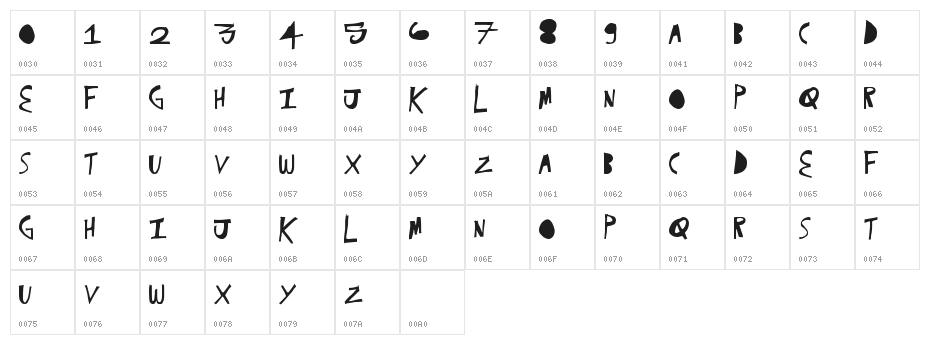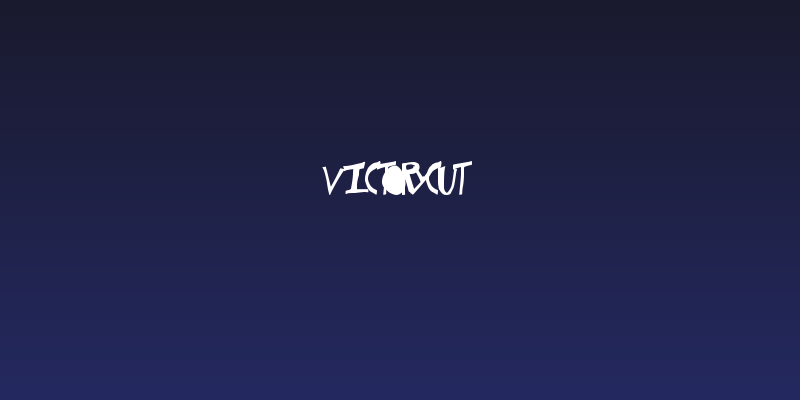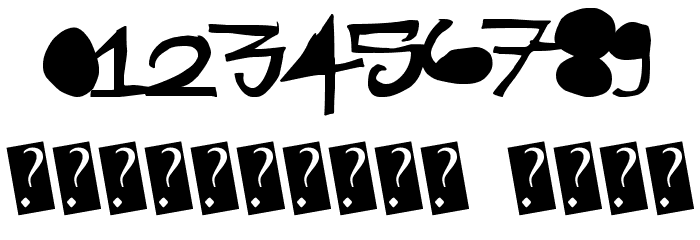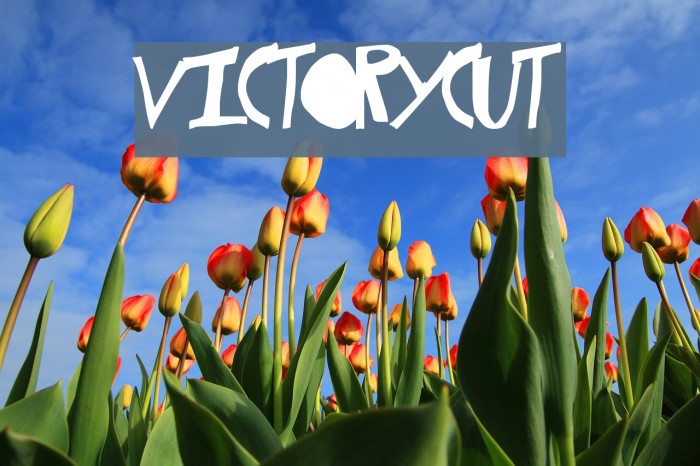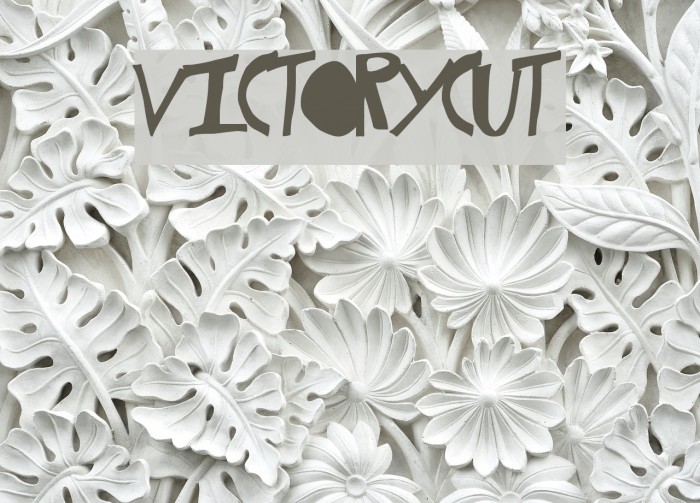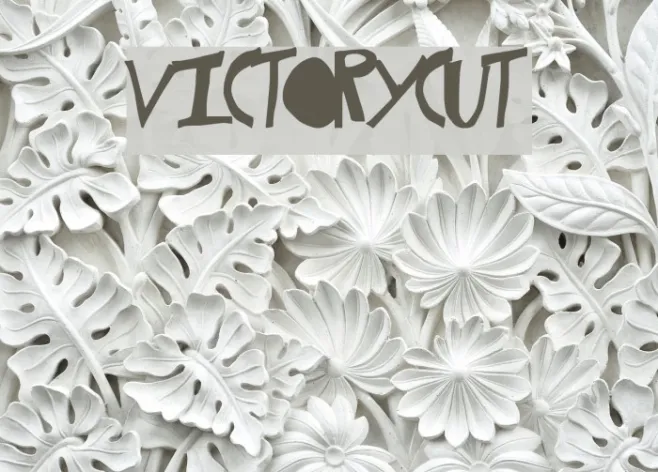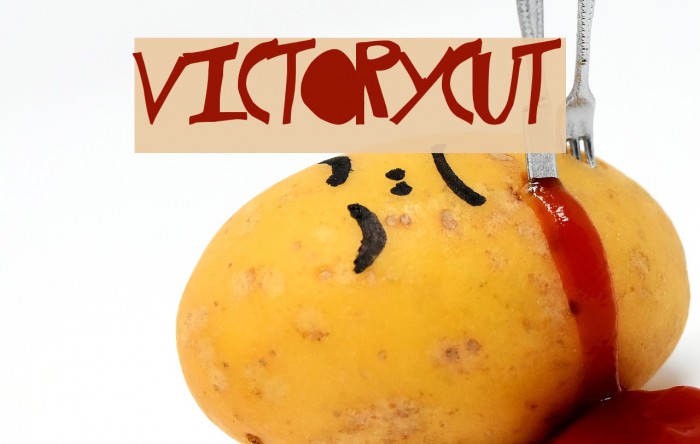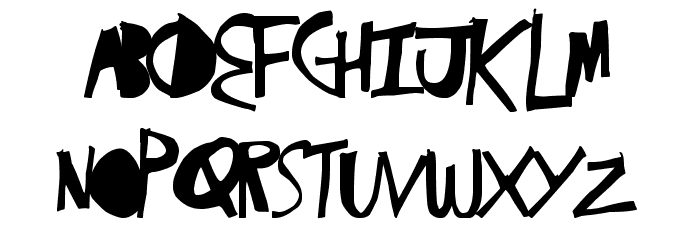
VictoryCut Font
VictoryCut Description
This font features a bold and dynamic style with a graffiti-like appearance. The characters are irregular and edgy, with sharp angles and a playful, rebellious vibe. The uppercase letters are particularly striking, with exaggerated curves and unique forms that give them a distinct personality. The lowercase letters maintain this energetic style, while the numerals and special characters add to the overall eclectic feel. The font's design is perfect for projects that require a bold, eye-catching typeface that conveys a sense of movement and creativity.
VICTORYCUT UPPERCASE
VICTORYCUT LOWERCASE
VICTORYCUT OTHER CHARS
| Overall Style | Modern, Urban |
| Proposed Projects | Ideal for street art designs, music album covers, urban-themed posters, and creative branding projects. |